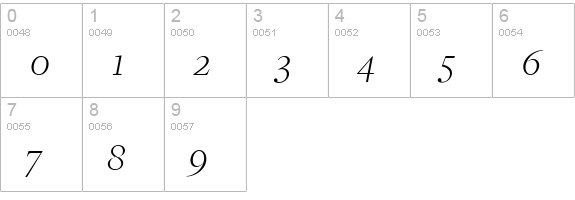
FreightDispLightItalic Font Details
FreightDispLightItalic is a sleek and modern font that exudes elegance with its light and italic design. Perfect for adding a touch of sophistication to any project, this font is versatile and easy on the eyes. Whether you're creating a professional document or designing a stylish website, FreightDispLightItalic is sure to make a statement. And the best part? It's completely free to download at FontsMarket.com! So you can elevate your design game without breaking the bank. Don't miss out on this opportunity to enhance your projects with the stunning FreightDispLightItalic font.